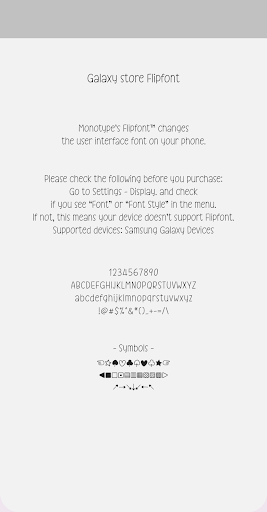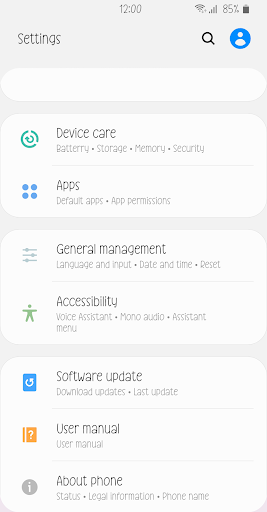
Nm NewYorkBagel
Nm NewYorkBagel is a lovely and cute font and has good readability. Customize your phone with this. Please try this font and leave your feedback.